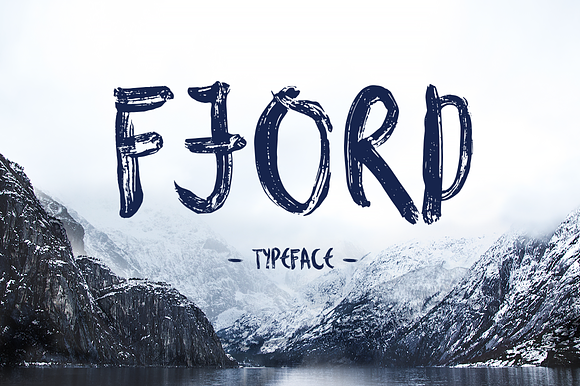
Fjord Brush Font
Fjord Brush Font is perfect for outdoor adventure branding, Nordic-inspired designs, nature retreat materials, wilderness expedition companies, Scandinavian restaurants, artisan craft labels, mountain lodge signage, outdoor gear packaging, adventure travel agencies, rustic cabin branding, natural product labels, and authentic outdoor communications.
What makes Fjord Brush Font exciting is its rugged elegance that captures the pristine beauty and untamed majesty of Nordic landscapes through bold brush strokes that evoke the raw power of glacial fjords and ancient wilderness. This captivating typeface embodies the essence of Scandinavian design philosophy and natural authenticity, combining organic brushwork with Nordic minimalism that resonates with audiences seeking genuine outdoor experiences and connection to pristine natural environments. The font's wilderness character and handcrafted quality create immediate association with Nordic heritage while maintaining the readability essential for contemporary outdoor and lifestyle applications. Its natural personality makes it perfect for brands that want to communicate adventure, authenticity, and the transformative power of wilderness experiences and Nordic-inspired living.
The Fjord Brush Font family includes regular and bold weights, featuring Nordic alternates, organic ligatures, and wilderness-inspired flourishes. The character set incorporates nature symbols, rugged numerals, and outdoor punctuation marks that enhance the font's Nordic character and provide designers with comprehensive wilderness typography solutions for authentic outdoor brand expressions.
Whether you're developing outdoor brand identities, creating Nordic marketing materials, or designing wilderness communications, Fjord Brush Font Free Download provides the rugged authenticity your adventure-focused projects require. This premium brush font excels in applications where outdoor credibility and Nordic authenticity are crucial for brand positioning and adventure enthusiast engagement in competitive outdoor recreation markets. The font's wilderness qualities work beautifully across outdoor packaging, adventure signage, and digital expedition platforms, making it an essential tool for designers creating memorable Nordic outdoor experiences. Adventure companies and outdoor brands choose this font for its ability to communicate wilderness authenticity while maintaining professional appeal and market credibility in outdoor demographics. The comprehensive character support includes Nordic symbols and outdoor glyphs, expanding its versatility for global adventure applications and multilingual wilderness communications. Professional designers appreciate its perfect balance of rugged authenticity and commercial functionality, ensuring projects remain both outdoor-credible and practically effective for adventure audiences. When you incorporate this exceptional brush font into your outdoor communications, you're selecting a typography solution that celebrates Nordic wilderness heritage and authentic adventure, ensuring your brand connects with outdoor enthusiasts while maintaining the rugged credibility essential for success in competitive outdoor markets and adventure industries that inspire exploration of pristine natural environments, celebrate Nordic outdoor traditions, and create authentic connections between modern adventurers and the timeless beauty of wild Nordic landscapes.